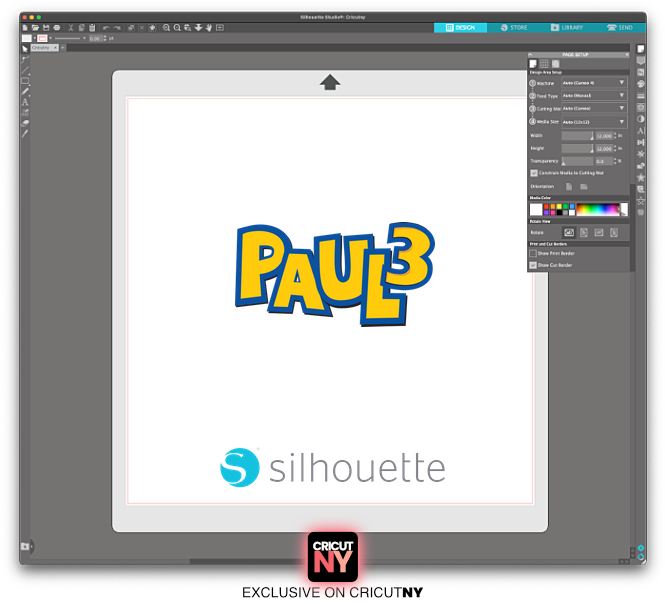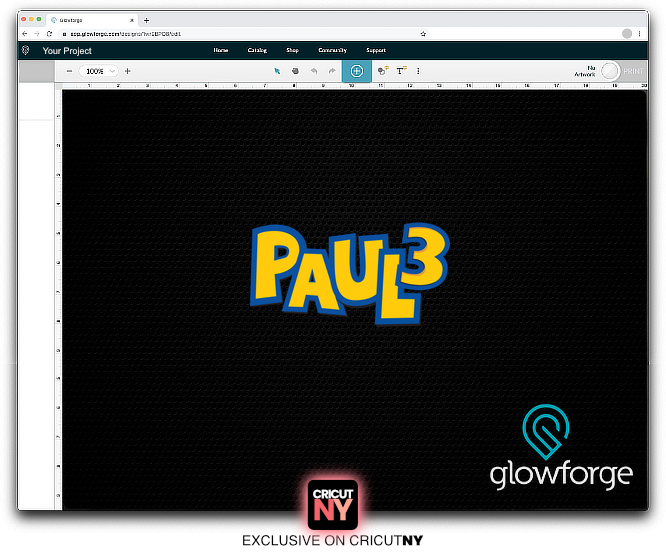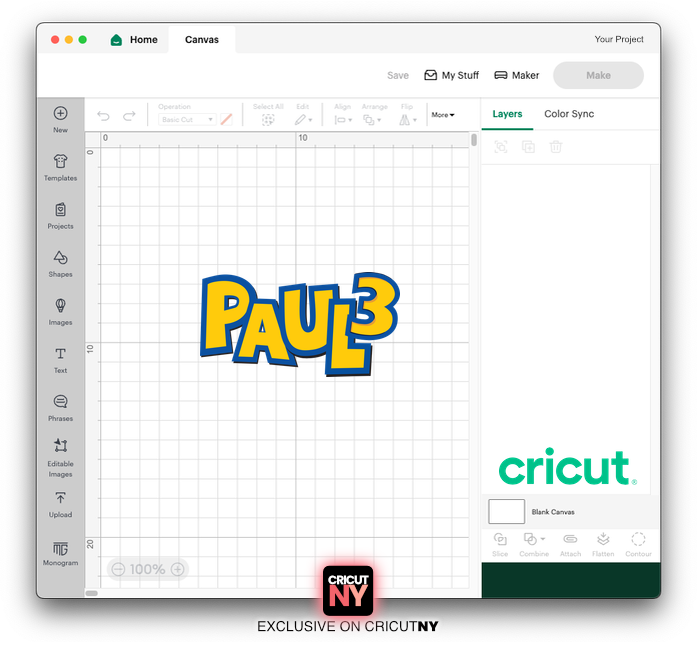
🎉 Toy Story Font – For the Most Memorable Birthdays Ever!
Looking to add that extra “wow” factor to your child’s birthday?
Our Toy Story Font is a must-have for creative moms who love making every detail feel magical.
Whether you’re using your Cricut or Silhouette, this font brings the fun and nostalgia of Toy Story straight into your home. It’s perfect for boys and girls alike — and trust us, the kids will notice.